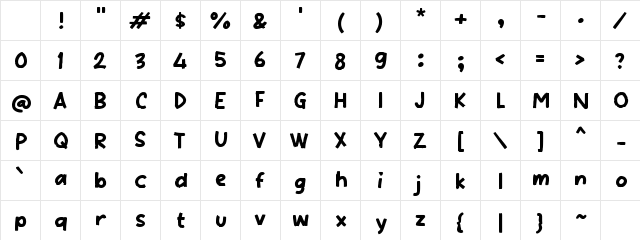
Complete Tabanan Regular glyph index. Displaying only characters natively supported by Tabanan Regular font.
Tabanan is a composed and adaptable typeface that performs quietly and consistently across a wide range of design contexts.